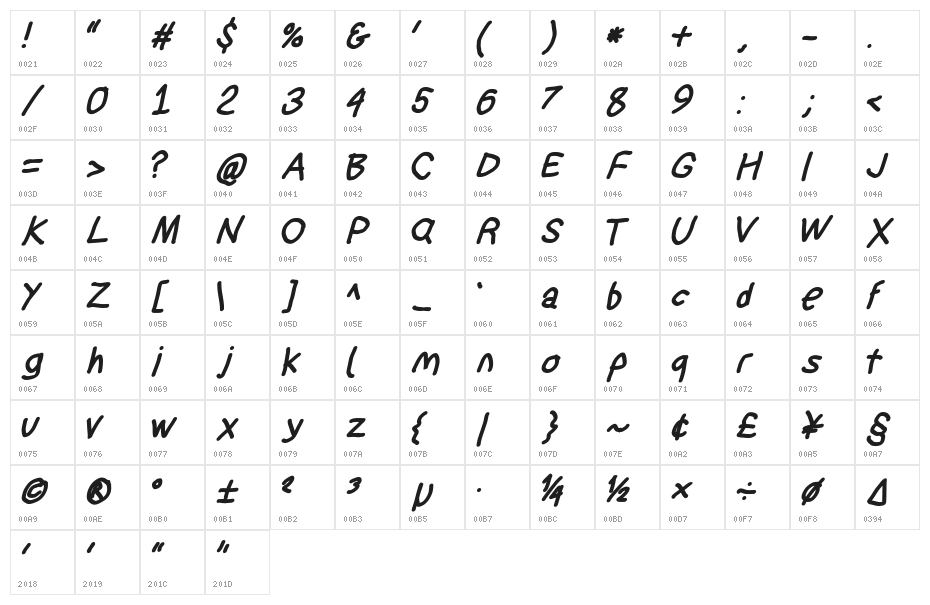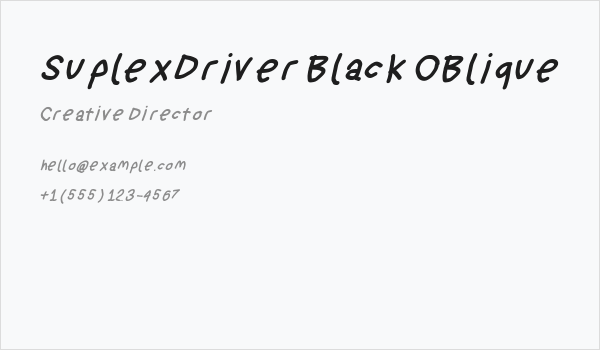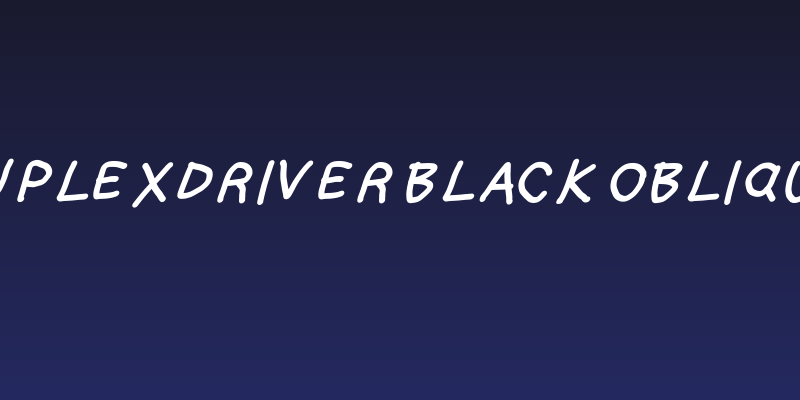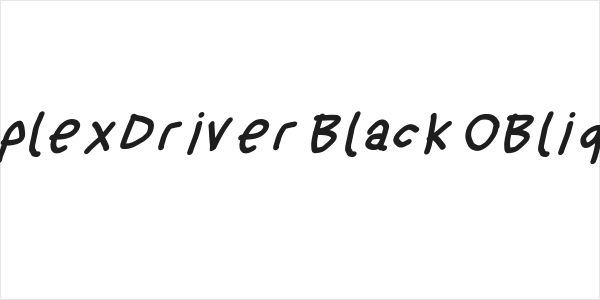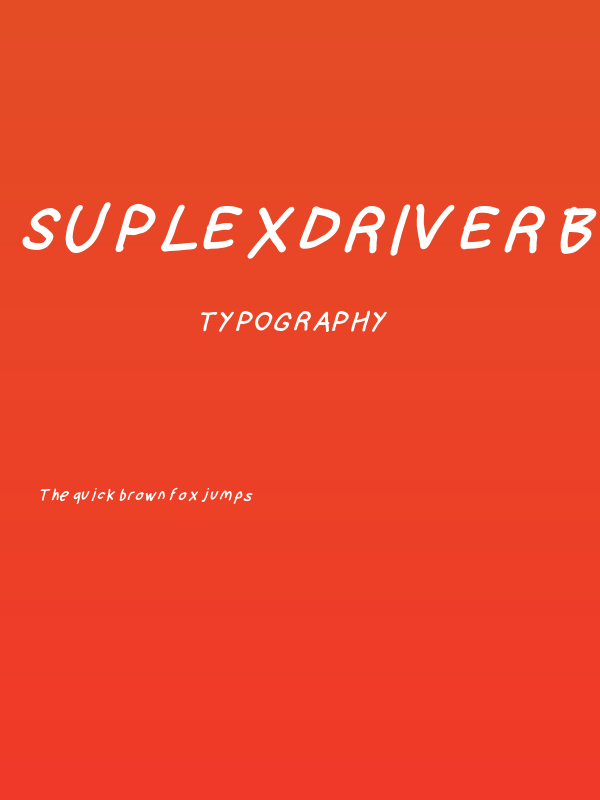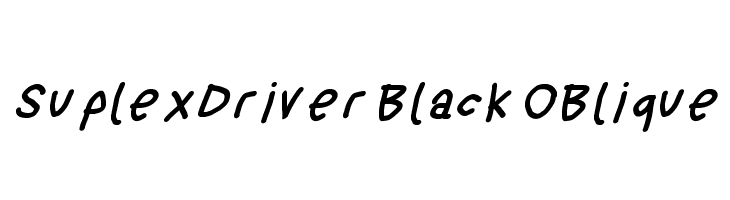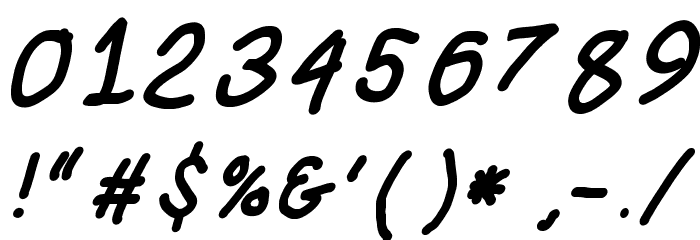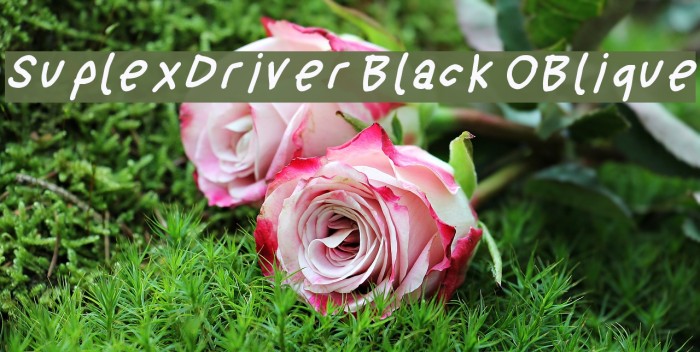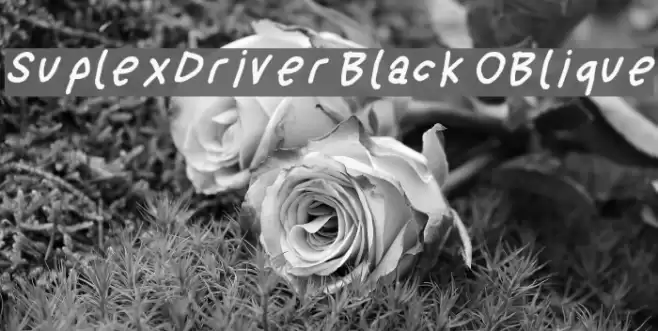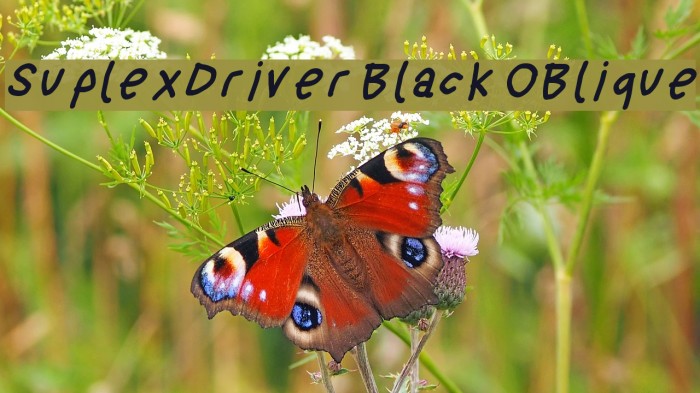
SuplexDriver Black OBlique Font
SuplexDriver Black OBlique Description
This font features a bold and dynamic handwritten style with a distinct oblique slant, giving it a sense of motion and energy. The characters are thick and rounded, providing a strong presence on the page. The uppercase and lowercase letters maintain a consistent style, with smooth curves and a slightly playful appearance. Numbers and special characters follow the same design principles, ensuring uniformity across all text. The font's boldness and slant make it ideal for attention-grabbing headlines or creative projects that require a touch of personality.
| Proposed Projects | Ideal for creative projects such as posters, logos, and branding materials that require a bold and energetic touch. |